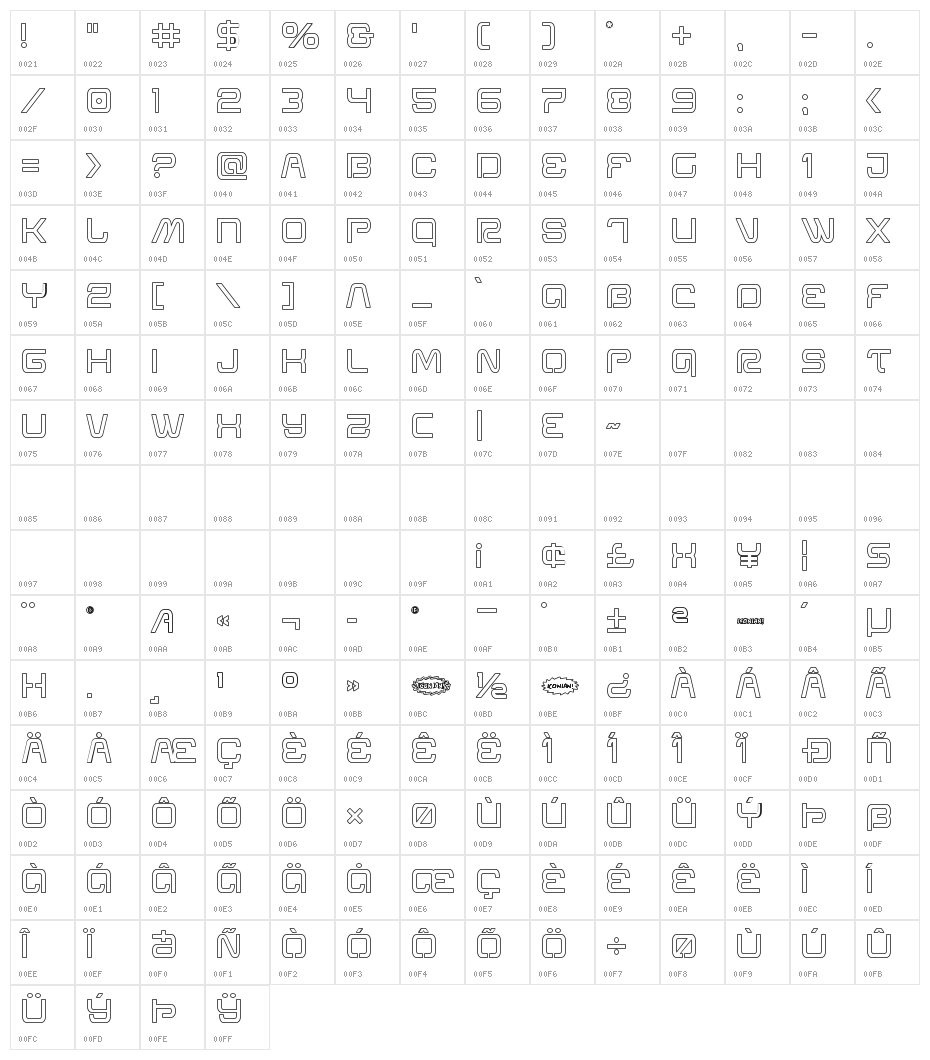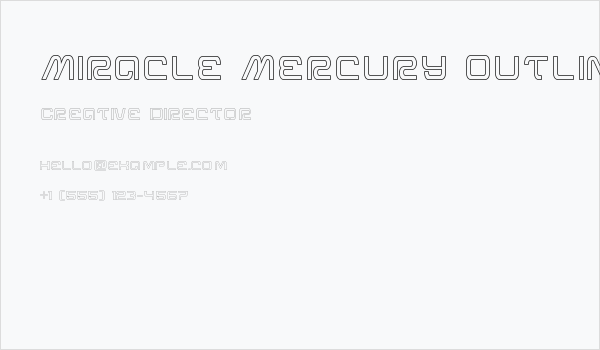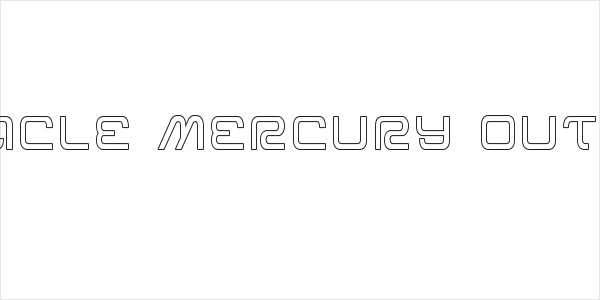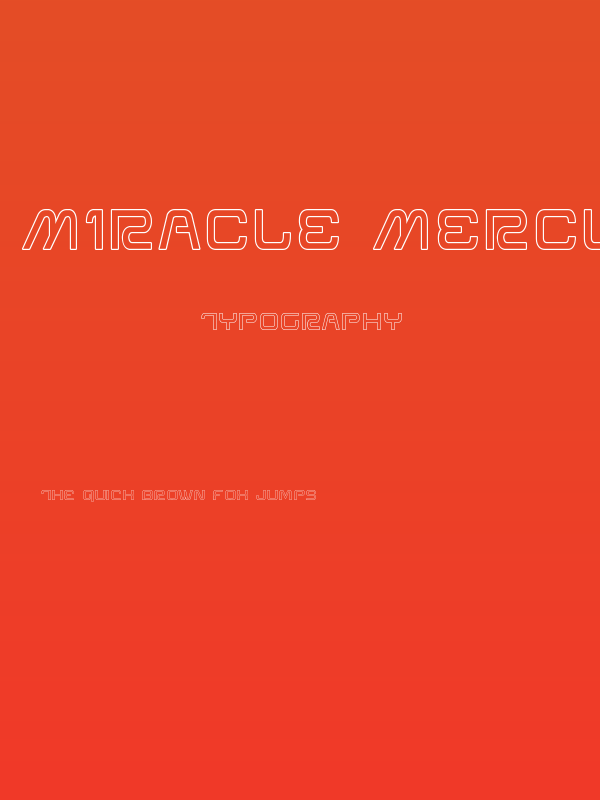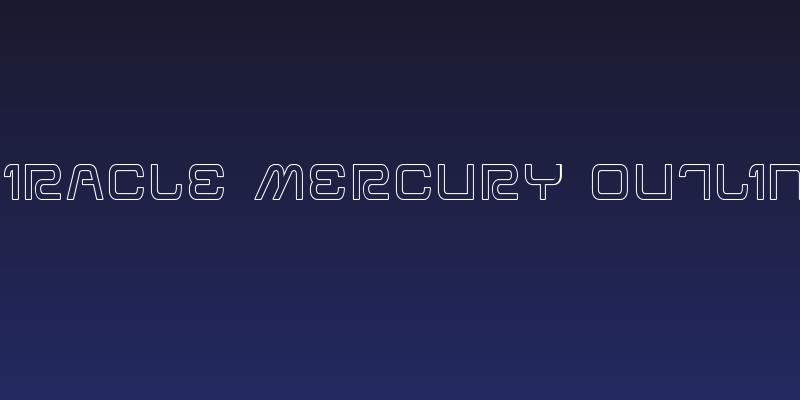
Miracle Mercury Outline Font
Miracle Mercury Outline Description
This font features a modern, futuristic outline style with geometric shapes and clean lines. Each character is crafted with a consistent stroke width, creating a uniform and cohesive look. The uppercase and lowercase letters maintain a similar height, enhancing readability while preserving the unique aesthetic. The numbers and special characters are designed to match the overall style, making them suitable for various applications. The font's outline design gives it a lightweight appearance, perfect for projects that require a contemporary and minimalistic touch.
| Proposed Projects | Ideal for tech-related branding, futuristic posters, digital interfaces, and modern graphic design projects. |